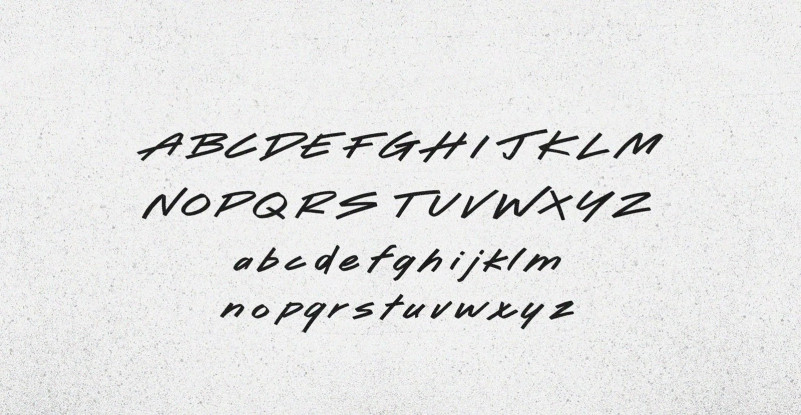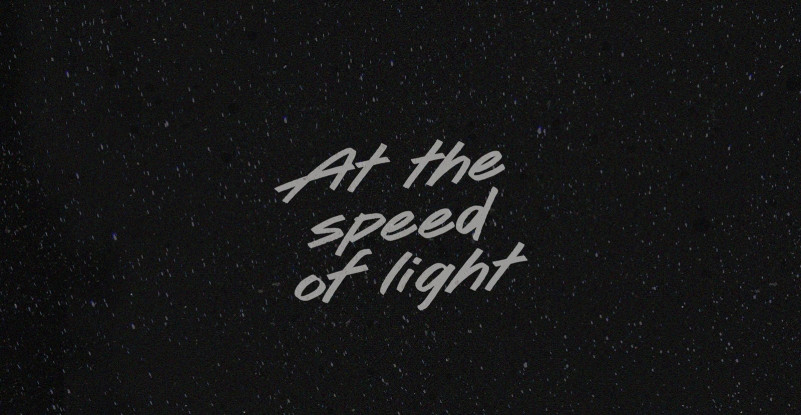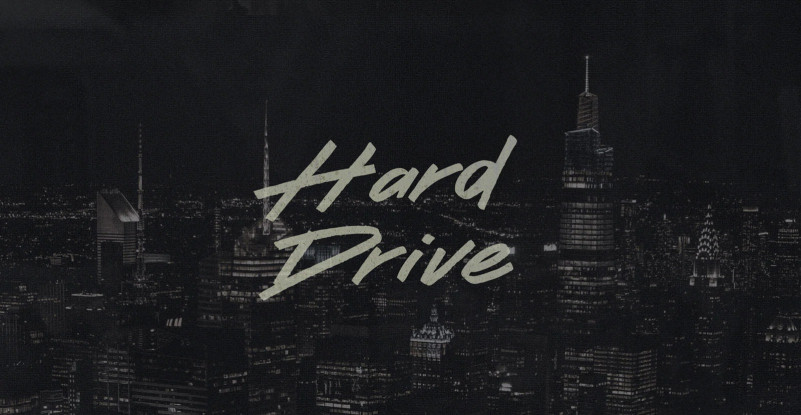
Hard Drive Font
Hard Drive Display Font, This font was created for all forms of business and branding such as clothing, logos, skate boards and others according to your needs.